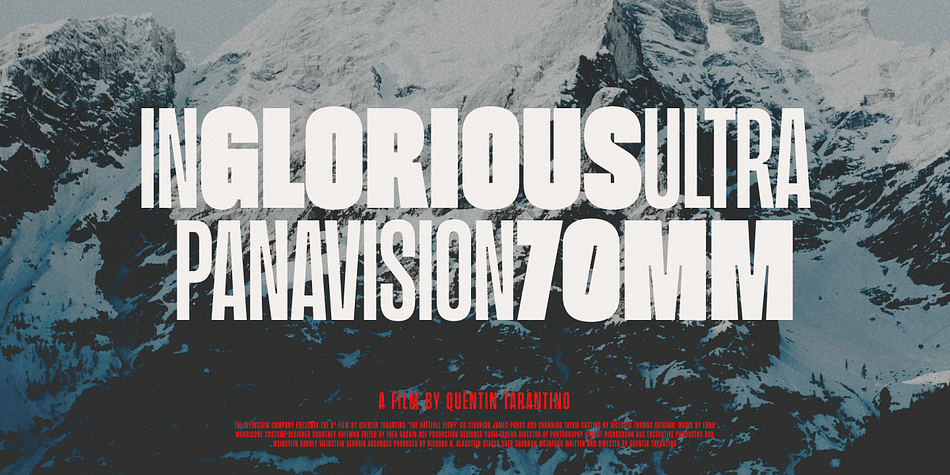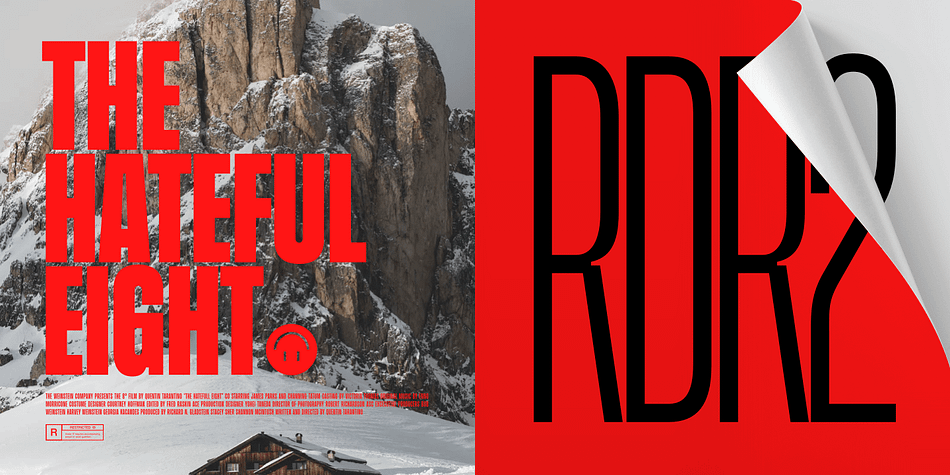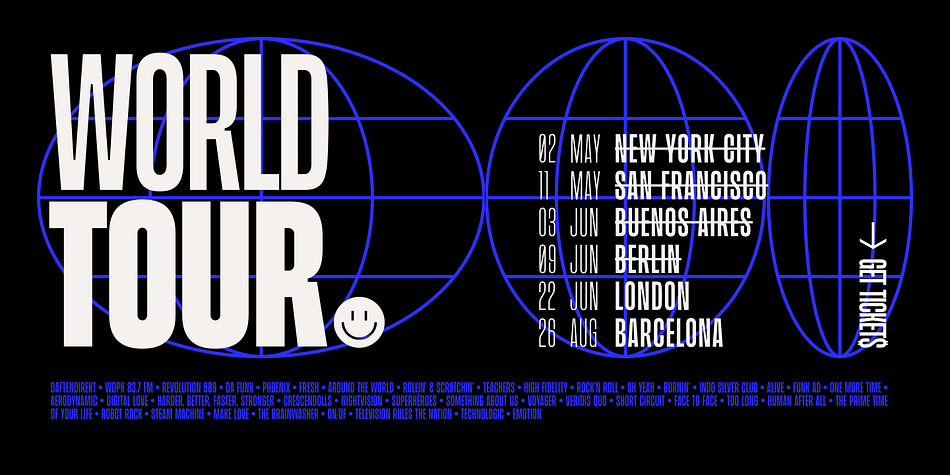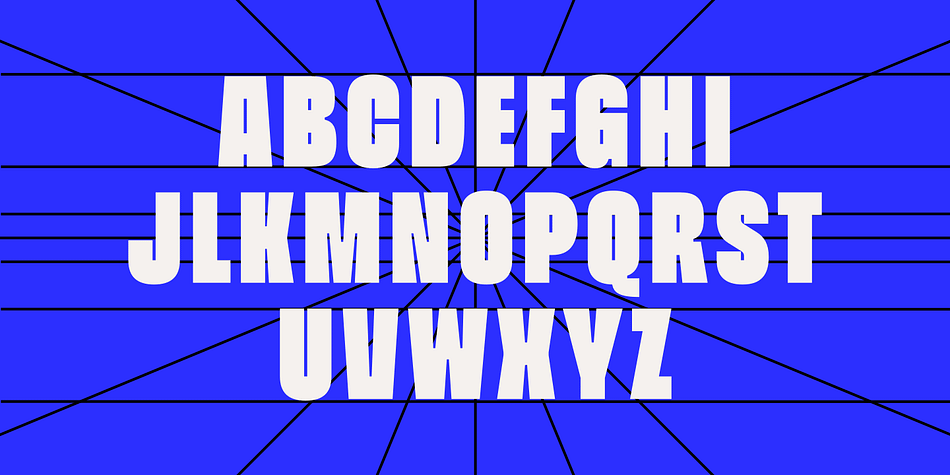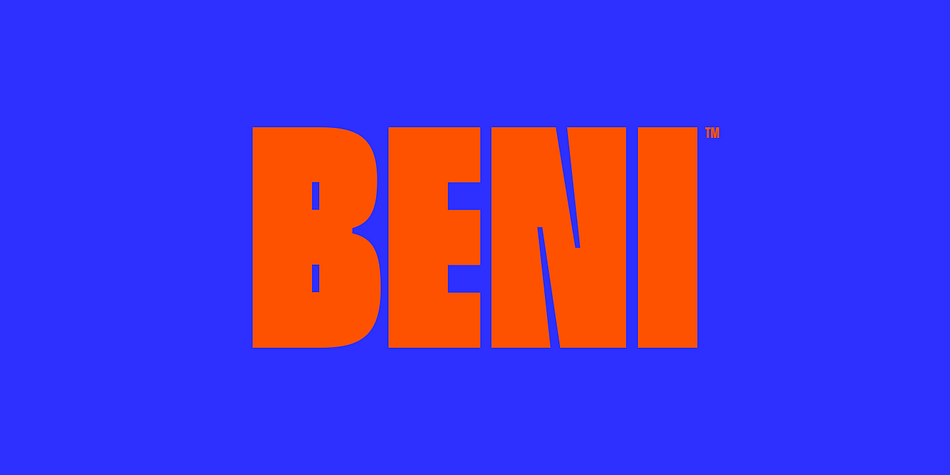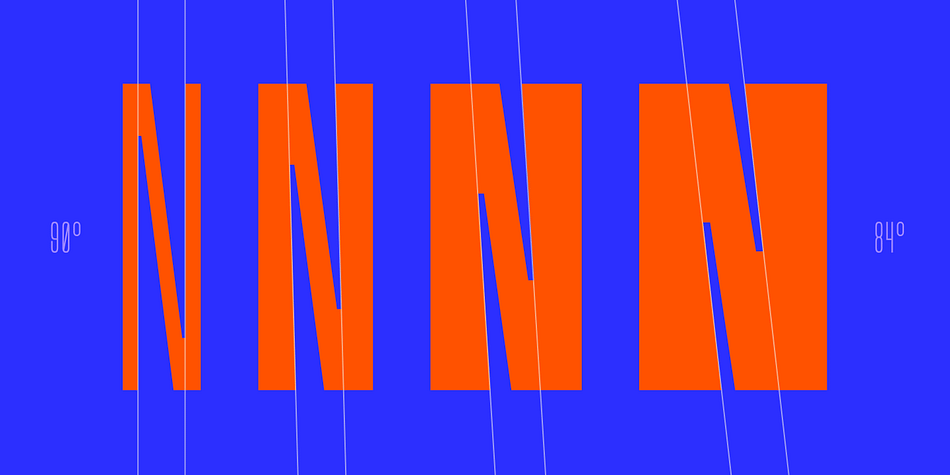
Beni is a display sans and sans serif font family. This typeface has four styles and was published by Nois.
Beni is a bold & strong sans serif font family, beautifully crafted to perform in short headlines in posters or contemporary interface design.
Its shapes have optical compensation to maximize the space between characters.
It is also inspired by movie posters with super condensed light body texts and works very well in combination or separately. It is made up of four styles, from capital light to capital bold.